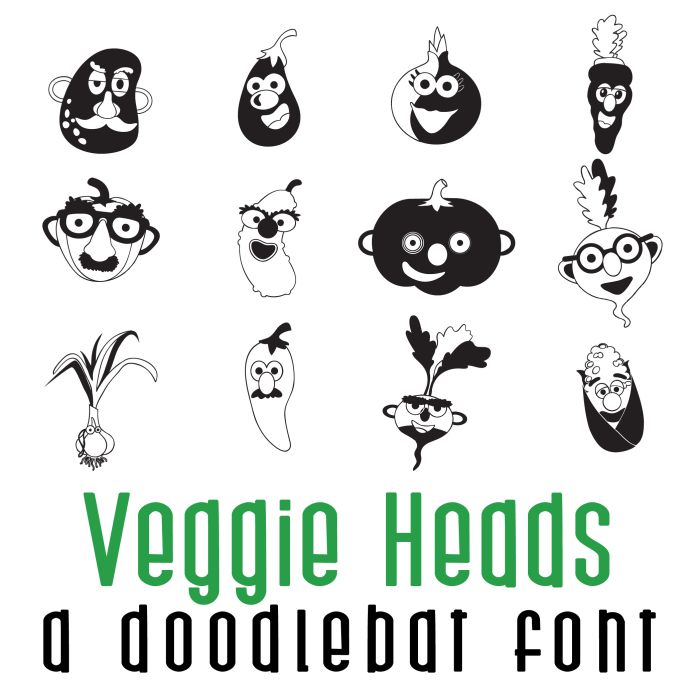
This doodlebat font features 26 fun veggies with faces and disguise. Perfect for classrooms, teachers, gifts, decor, scrap book pages, planner stickers and more!